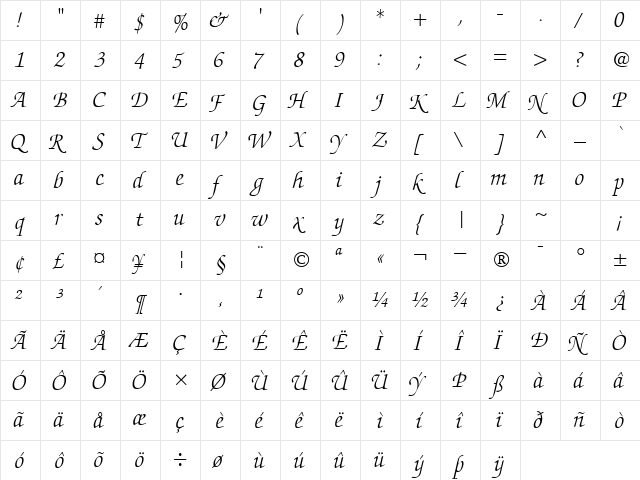
ChanceryScriptLightSSK Italic Font Preview
Design Context for ChanceryScriptLightSSK Typeface
ChanceryScriptLightSSK brings a calligraphic fluidity to the page — its connecting strokes and expressive curves give it an unmistakably human quality. The delicate stroke weight brings airiness and refinement to layouts.
Font Pairing: Combine ChanceryScriptLightSSK with a simple geometric sans for maximum contrast — the tension between flowing curves and clean structure is a classic typographic pairing.
Pro Tip: Pair ChanceryScriptLightSSK with a clean sans-serif for supporting text. The contrast between fluid script and geometric structure creates an elegant typographic hierarchy.